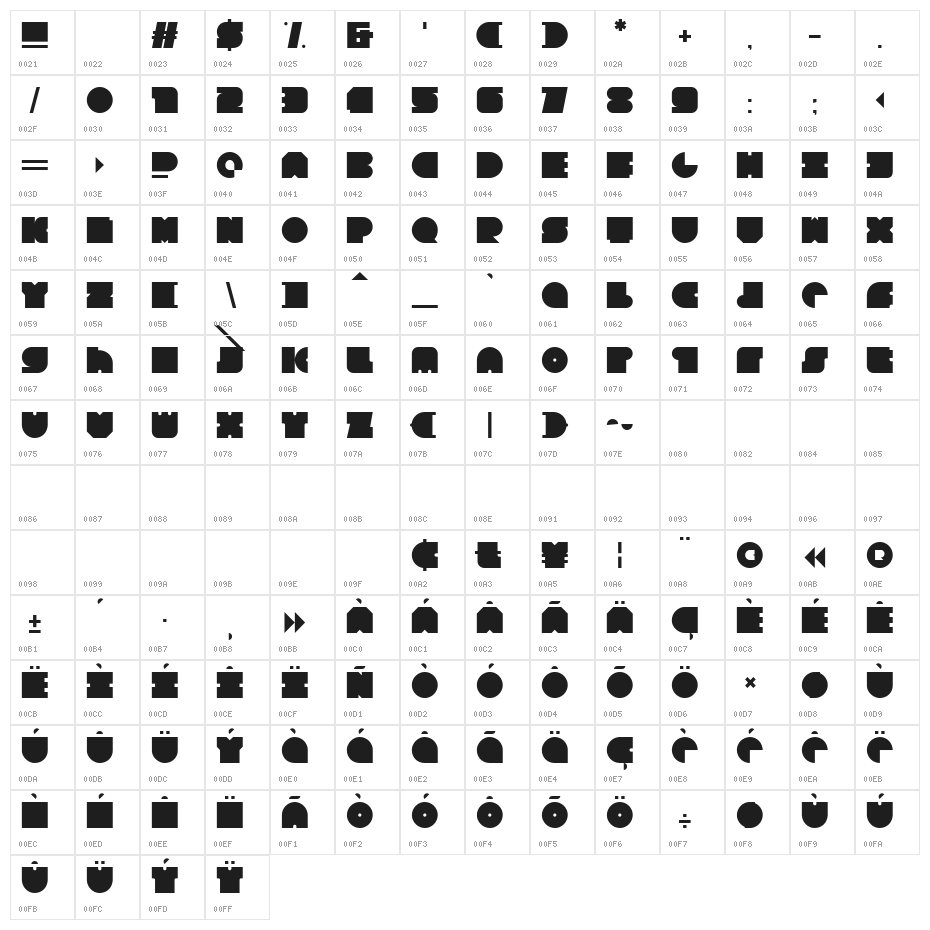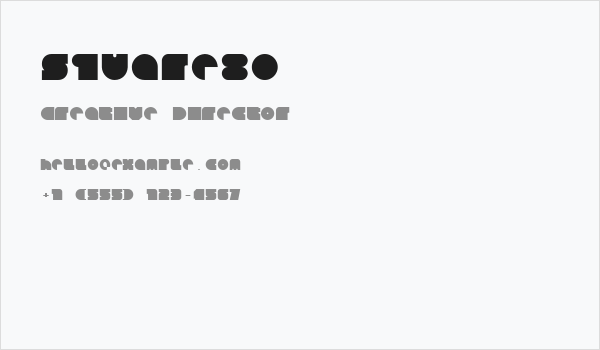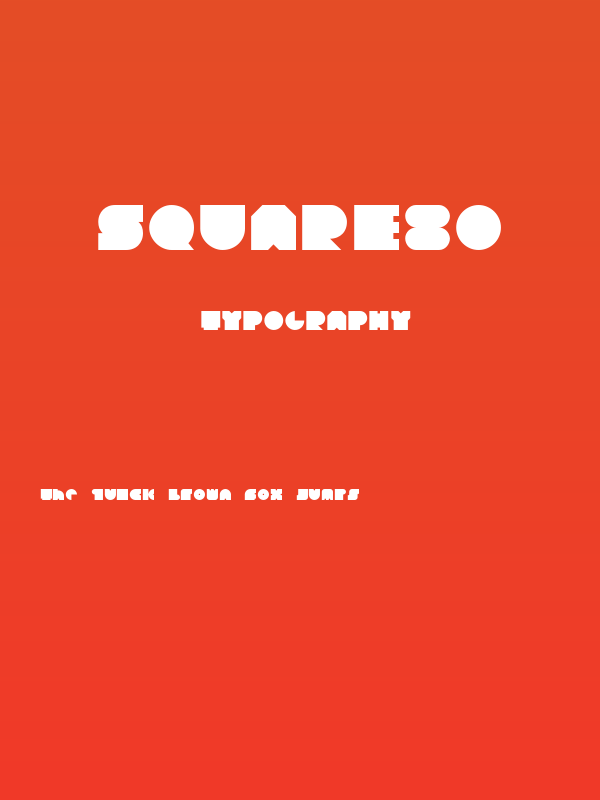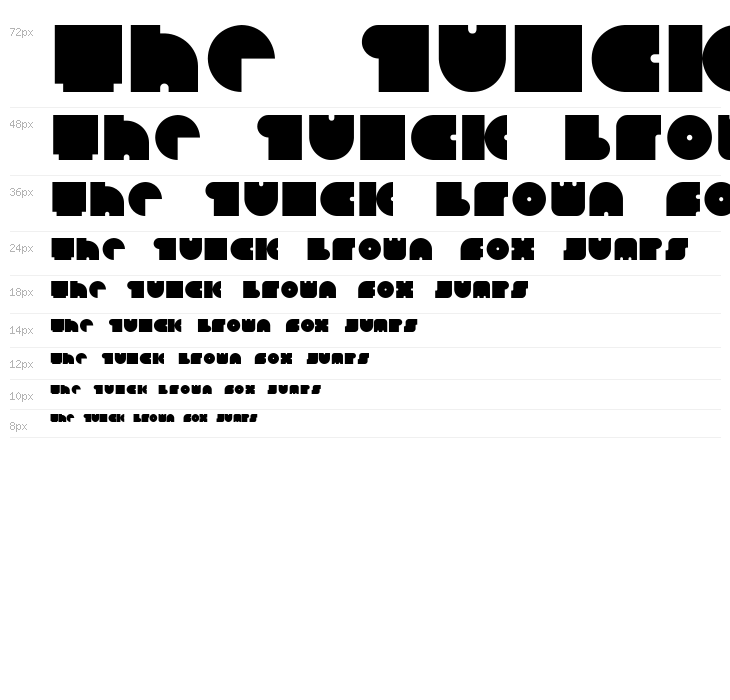
Square80 Font
Square80 Description
This font features a bold and geometric design with a distinctly modern and futuristic aesthetic. Each character is constructed with a combination of sharp angles and smooth curves, creating a unique visual impact. The uppercase and lowercase letters maintain a consistent style, emphasizing a blocky and robust appearance. Numbers and special characters are designed to match the overall theme, ensuring uniformity across all glyphs. The font's heavy weight and solid structure make it ideal for attention-grabbing headlines and display purposes.